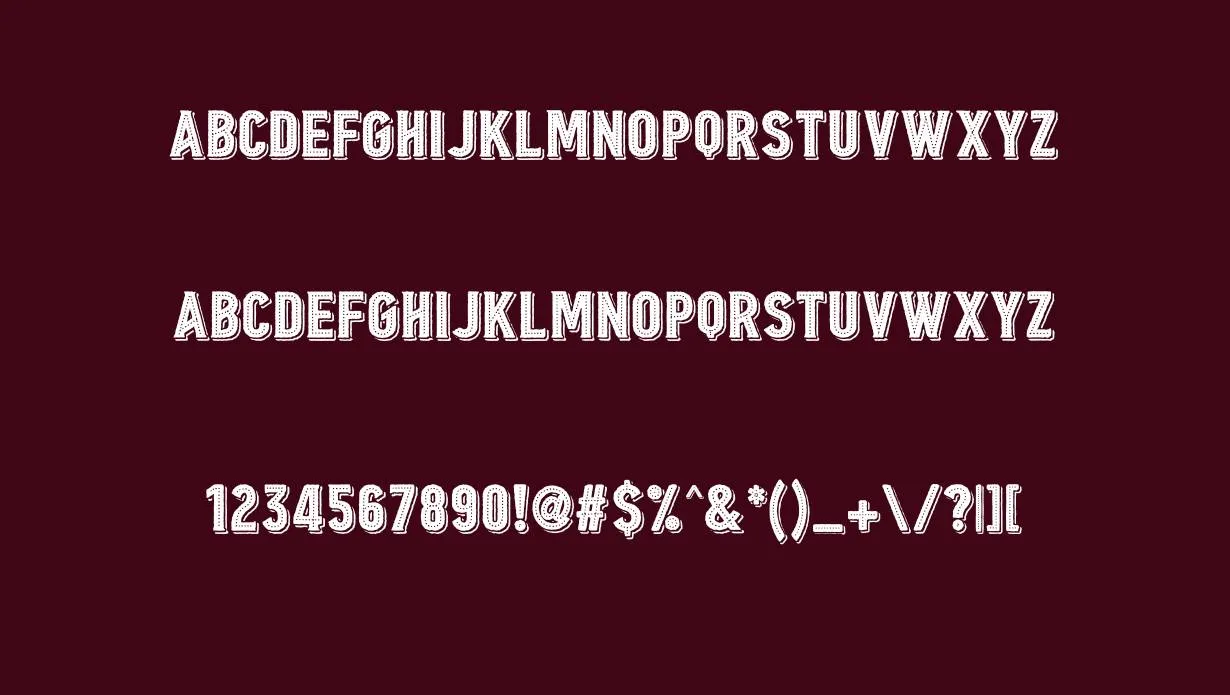
The Burlesque font is a classic and stylish typeface commonly used in designs seeking an elegant and ornate feel. Its intricate and decorative letters make it suitable for conveying sophistication and allure. This font is often used in vintage designs, invitations, or artistic branding.
| Name | Burlesque Font |
| Designer | Nick's Fonts |
The weight of Burlesque font tends to be on the bolder side, ensuring a strong and impactful presence. Its width is usually standard, allowing for readability in various applications, especially in formal documents or high-end branding.